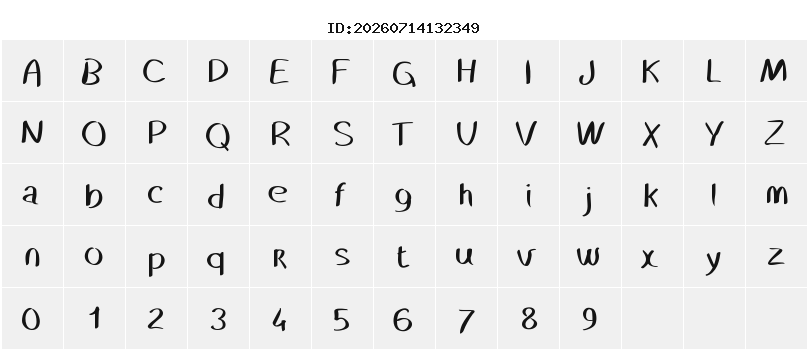
HappyNewYear2016 Preview
• Font Name: HappyNewYear2016
• Full Font Name: HappyNewYear2016
• PostScript Name: HappyNewYear2016
About HappyNewYear2016.ttf
HappyNewYear2016.ttf is a modern, elegant sans-serif font designed for ultimate readability and visual harmony. Perfect for branding, headlines, web design, and print materials.